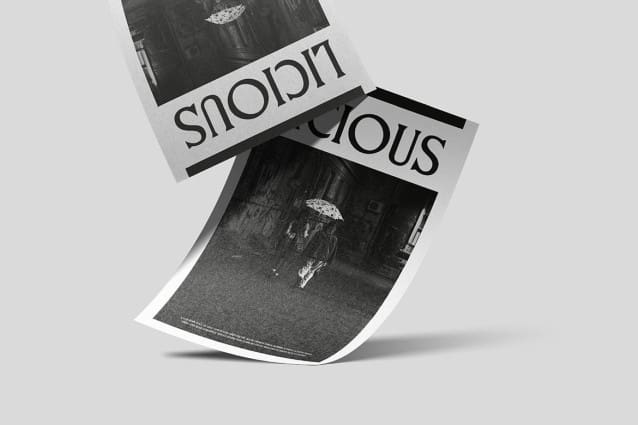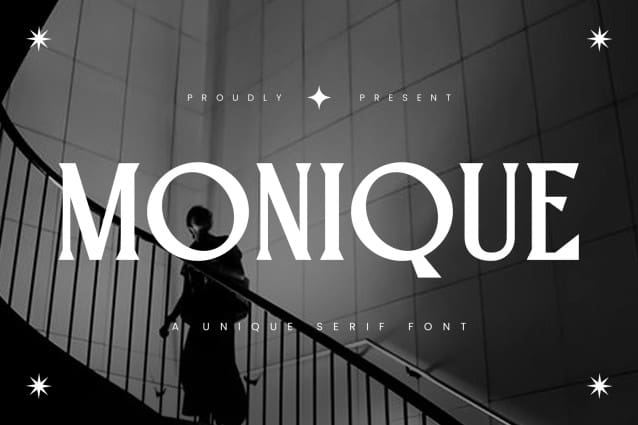
Monique Font
Monique Font is a sophisticated and unique serif font that combines elegance and creativity. Its refined letters and subtle details make it perfect for high-end brands, editorial designs, invitations, and logos. Monique’s distinct character adds a modern twist to the classic Serf structure, offering a look that is both timeless and contemporary. Whether used in print or digital, Monique elevates your designs with its elegant style and professional edge, making it a great choice for projects that require a balance of uniqueness and elegance.